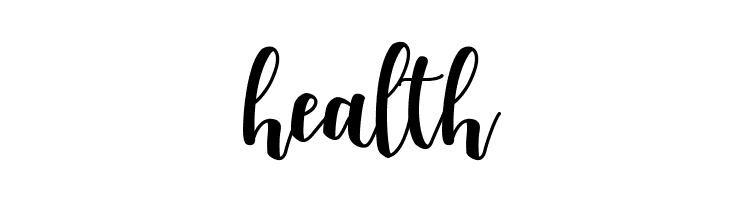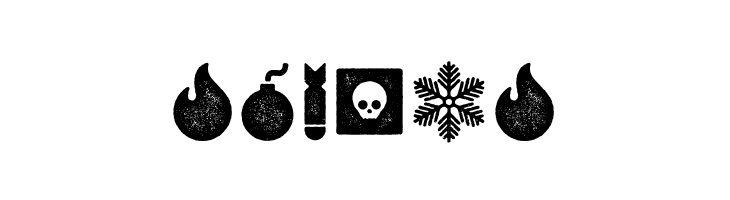
( Mas Anis Studio - Naufal Anis - creativemarket.com/naufalans?u=naufalans )
A bold, expressive script font with flowing, cursive letterforms.
( Sean Johnson - www.seanjohnson.net/fonts )
A bold, geometric font with a futuristic and digital aesthetic.
( Thirtypath - www.thirtypath.com )
An elegant script font with intricate swashes and flowing letterforms.
( Vladimir Nikolic - www.coroflot.com/vladimirnikolic )
A bold, geometric font with thick strokes and minimal contrast.
( Yellow Design Studio - Ryan Martinson - www.yellowdesignstudio.com )
A collection of vintage-style, distressed icons and symbols with a grunge texture.
( aldedesign - Alde Saputro - creativemarket.com/aldedesign?u=aldedesign )
A graceful and elegant script font with flowing, cursive lines.
( aldedesign - Alde Saputro - creativemarket.com/aldedesign?u=aldedesign )
An elegant script font with flowing, interconnected letters and high contrast strokes.
( aqr typeface - Azra Qaireen - bit.ly/2M2eb7C )
An elegant script font with flowing, interconnected letters and refined details.
( mlkwsn - Malik Wisnu )
An elegant script font with flowing, interconnected letters and ornate flourishes.
( Blue Jay Font Studio - katzfonts.50megs.com/bj1.html )
A festive decorative font featuring characters within holly-adorned bells.